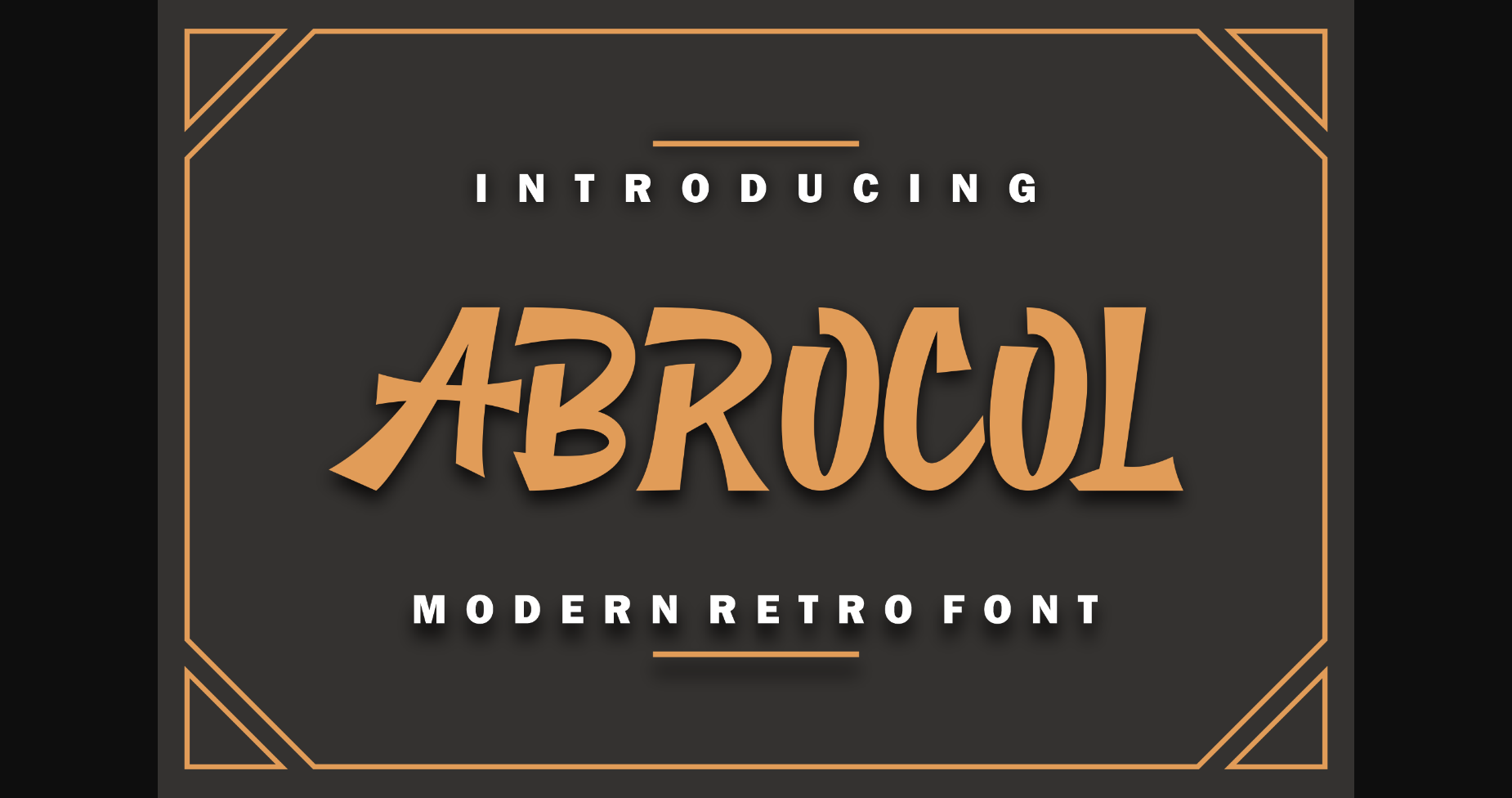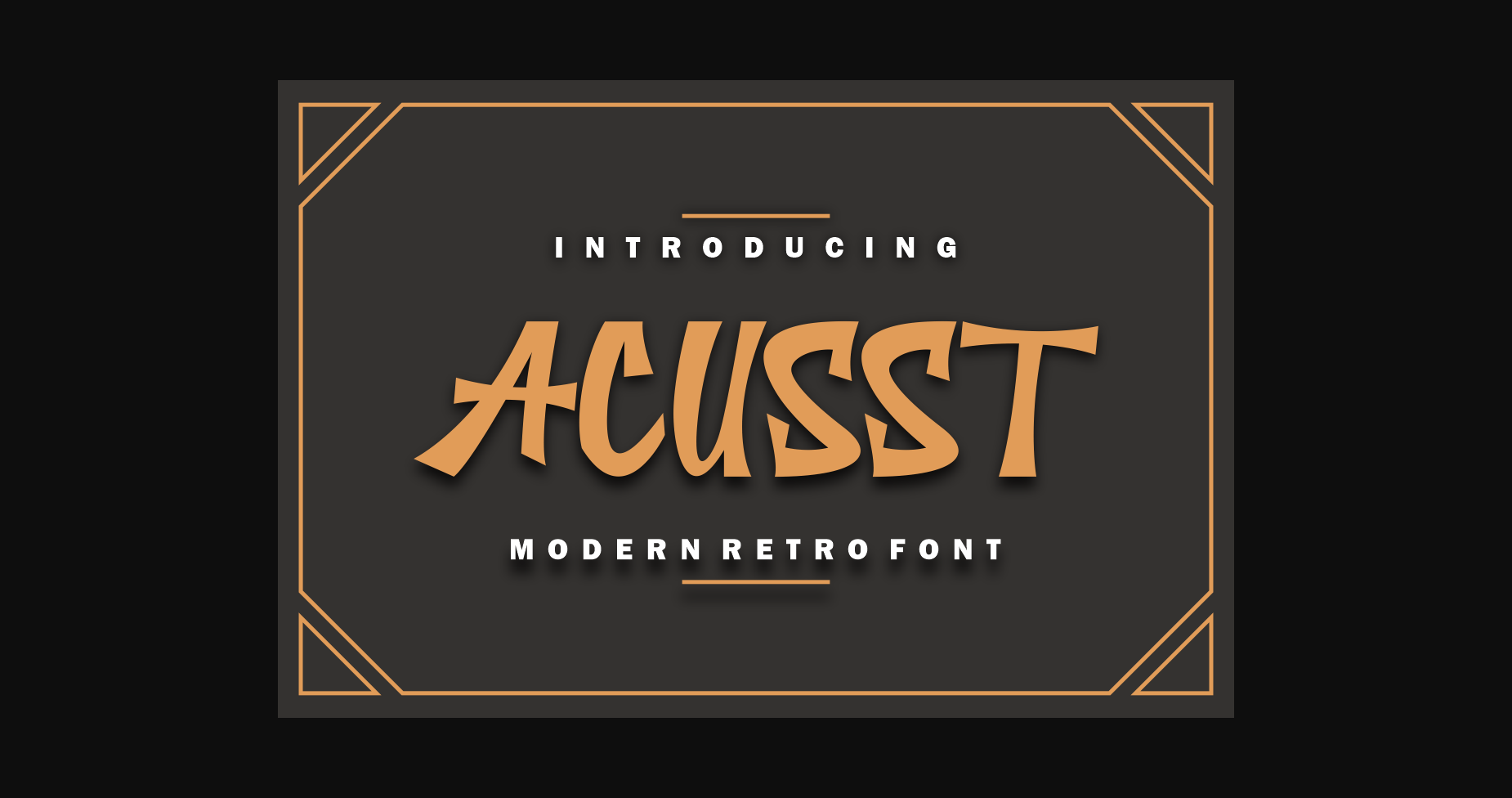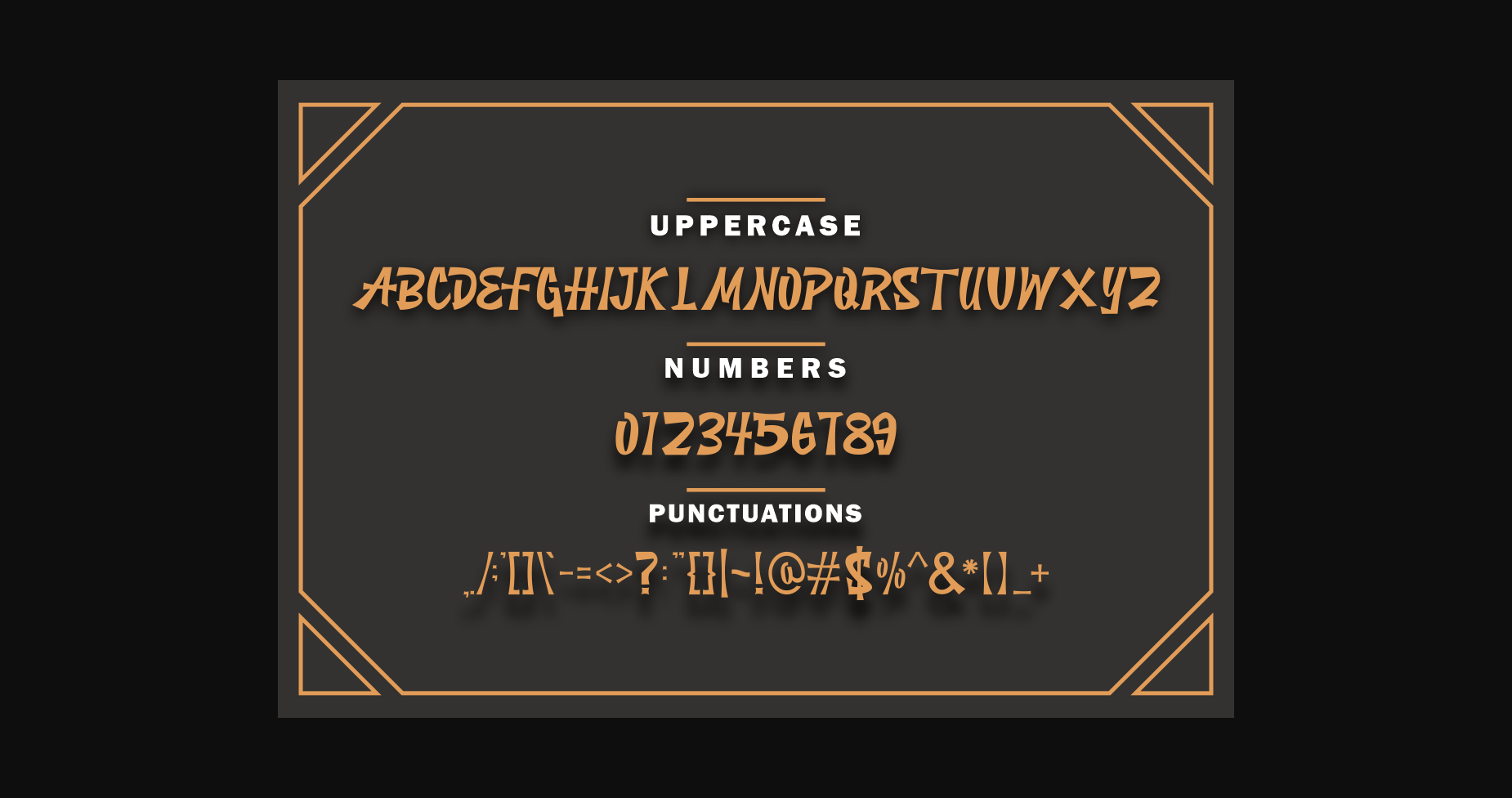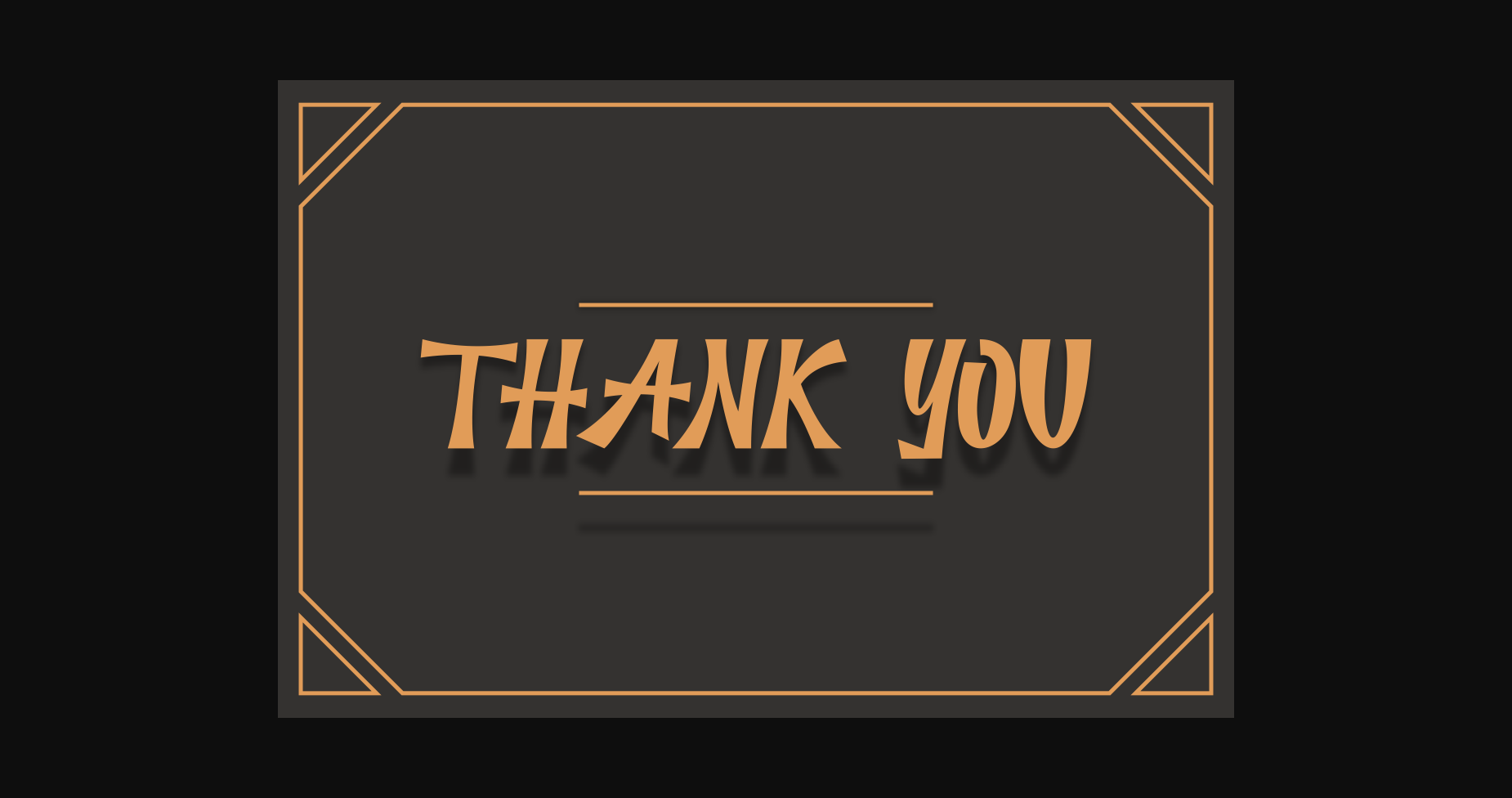
Abrocol Font
About Abrocol Font
Abrocol is a modern serif font with interesting variations. Bring a little magic or romance to your work—it’s a fun twist on the traditional look and feel of a classy serif font.